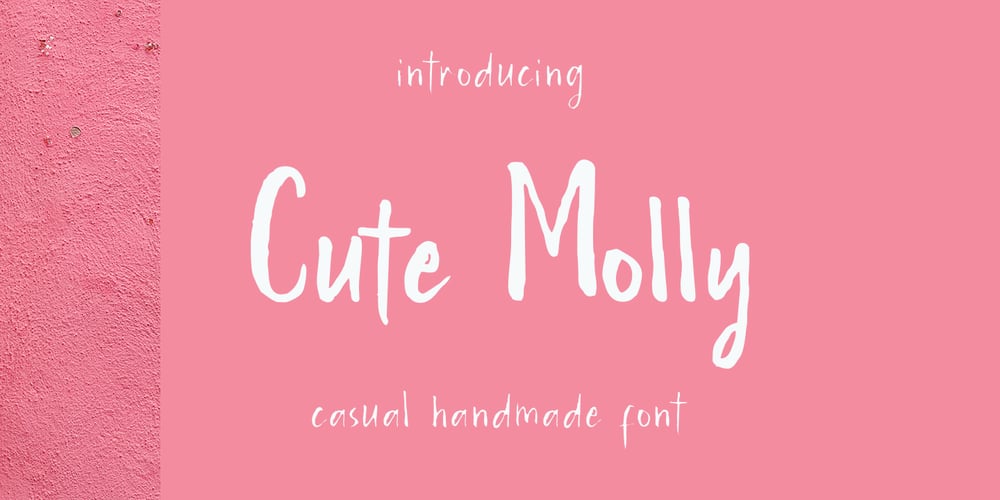
Cute Molly Font Family was designed by Muhammad Mujibulloh and published by MJB Letters. Cute Molly contains 3 styles and family package options. Cute Molly is a very cute handwritten font created with great attention to produce beautiful, funny and stunning works. Your project will definitely look very cool with this font which has 3 weights: regular, thin and bold. Grab it fast and happy designing!